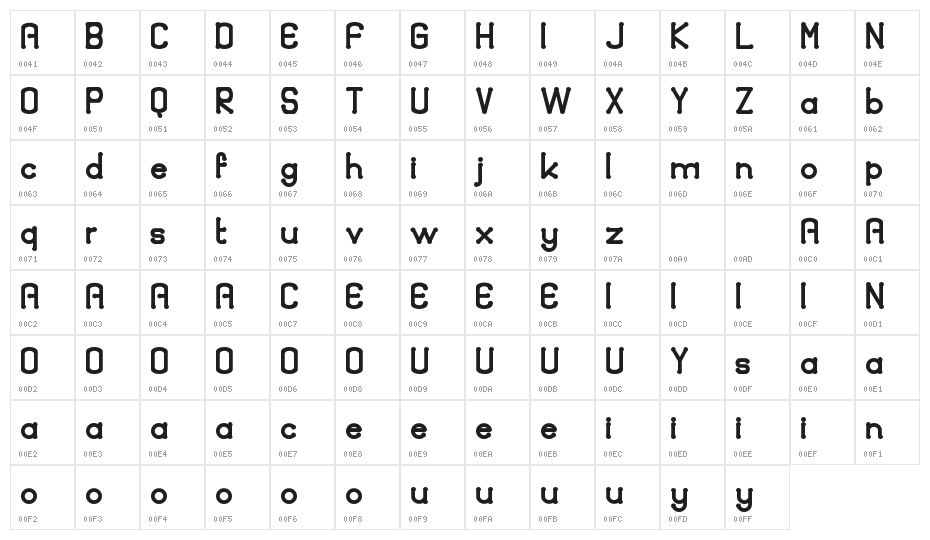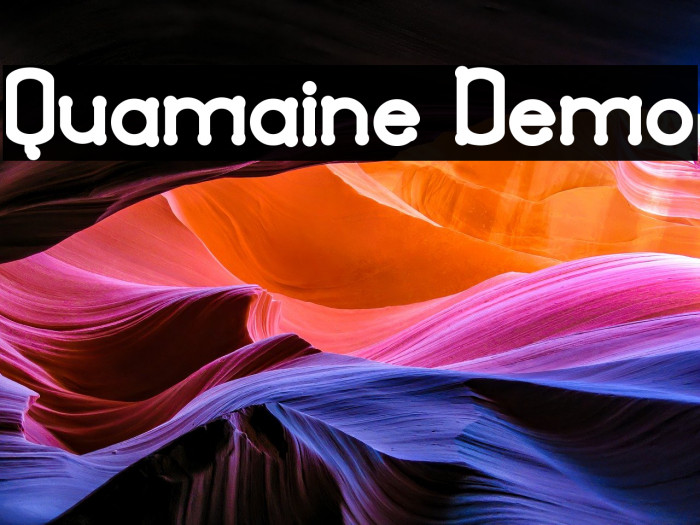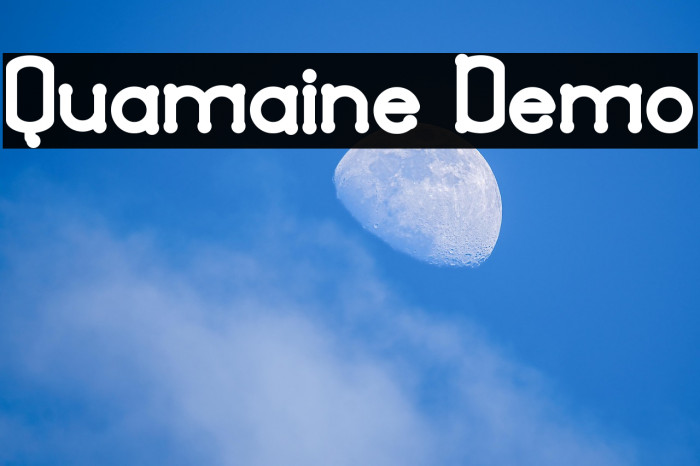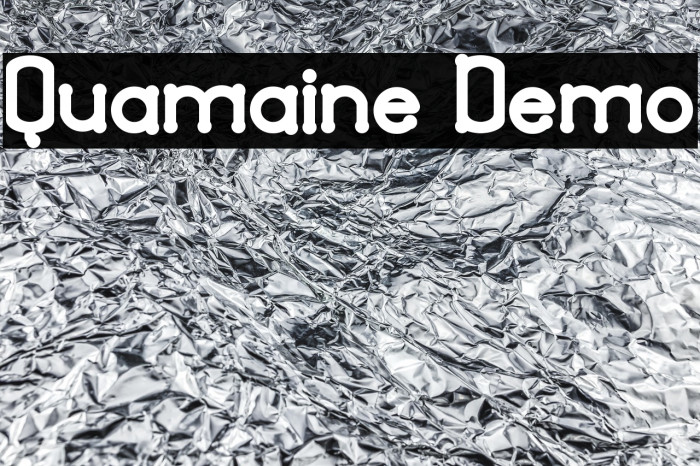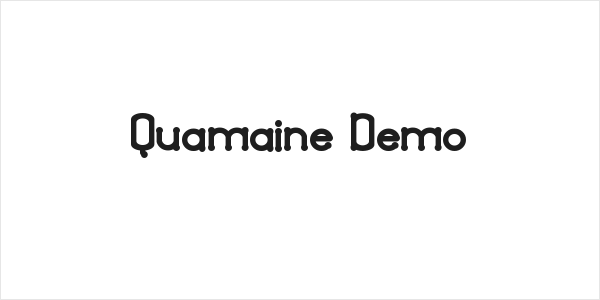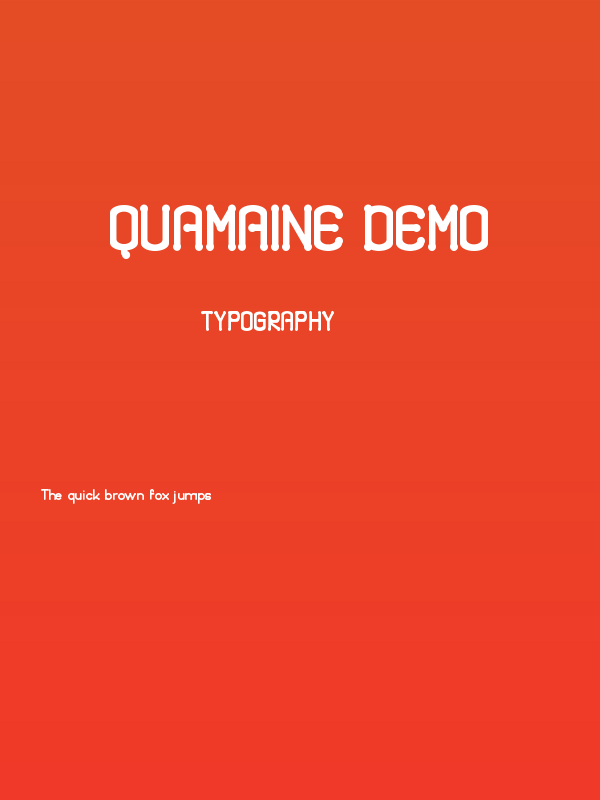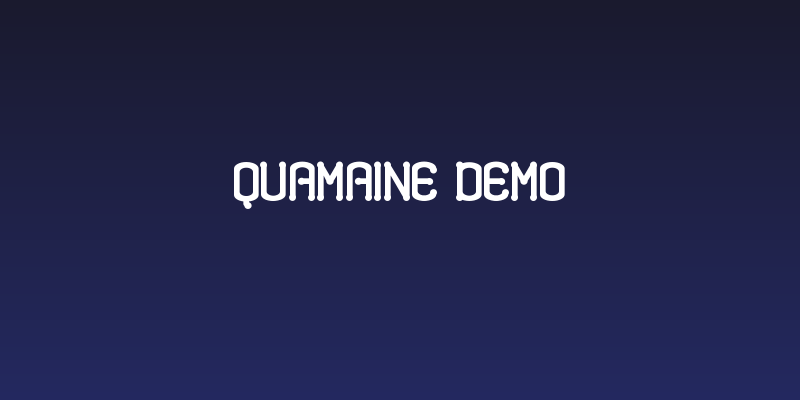
Quamaine Demo Font
Quamaine Demo Description
This font features a playful and rounded design, characterized by its bold and smooth curves. The letters have a consistent thickness, giving it a uniform appearance. The rounded edges and soft terminals create a friendly and approachable look. The uppercase and lowercase letters maintain a similar style, ensuring readability and coherence. The numerals and special characters are designed to match the overall aesthetic, making it versatile for various applications. Its unique style is suitable for projects that require a touch of whimsy and creativity.
| Proposed Projects | Ideal for children's books, playful branding, creative posters, and fun packaging designs. |